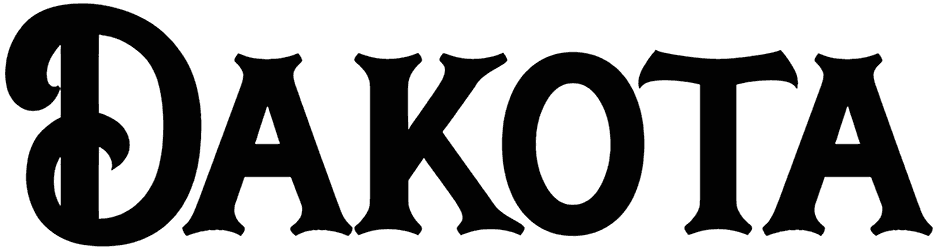
Dakota Font
Dakota is exactly the suitable typeface that your audience expects you to use in designing graphic content such as posters, video game banners, logos, book covers, and illustrations. Although it doesn’t support lowercase letters, this retro font provides two distinctive versions of uppercase letters. As the most prominent point, it leads to a sense of classic, vintage, and jauntiness.